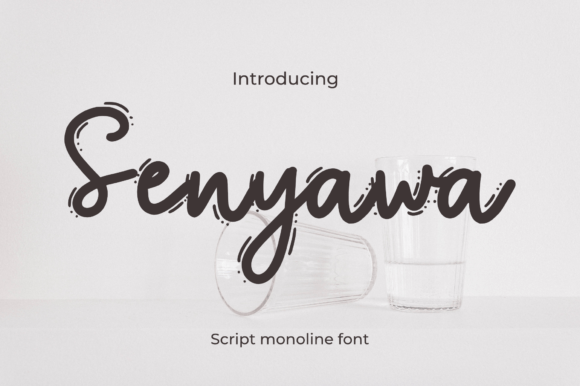
Senyawa Font: A Quirky Handwritten Script for Playful Designs!
About the Senyawa Font
From logos to headlines, the Senyawa Font is the perfect choice for making a lasting impression. Senyawa is a neat, paint brushed and quirky handwritten font. You can use it for various projects, such as blog posts, logos, branding, ads, invitations, greeting cards, planners, photo albums, decorations, and much more.
Senyawa Font Usage Examples
Senyawa Font Example